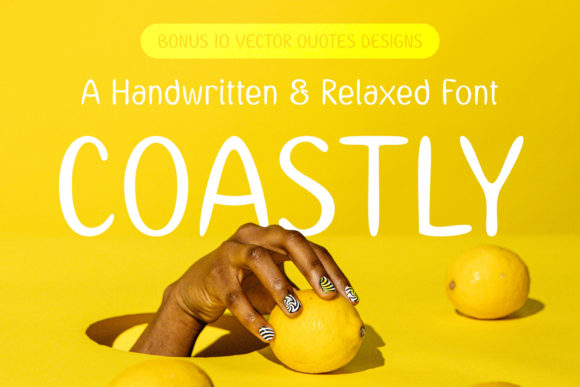
Embark on a Typographic Journey with Coastly Font: Where Summer Breezes Meet Creative Expression!
Meet Coastly, a script font that radiates the spirit of vacation, summer, and joyous gatherings. Its calm and relaxing aura makes it a perfect choice for headlines, posters, product designs, quotes, branding, and marketing materials that seek warmth and a connection with nature.
Crafted with inspiration from the sun-kissed landscapes of the Amalfi Coast in Italy, Coastly's palette of colors evokes the freshness of lemons, granita, and ice cream. It's a font that transports you to a world of relaxation, beach getaways, and ferry trips.
With Coastly, you can associate the magic of yearly holidays like Christmas, Thanksgiving, Easter, New Year's Eve, Mother's Day, and more. Imagine your designs adorned with this font, spreading joy and festivity.
Enhance your creative arsenal with Coastly's collection of bonus quotes, meticulously designed in vector and raster formats. Bring life to quotes like "I am all good, I have coffee," "I'm a dreams traveler," "Mistakes are made for learning," and more.
Coastly is your go-to font for creating designs that emit a sense of calm, relaxation, and a connection with nature. Dive into the world of Coastly and let your creativity blossom.